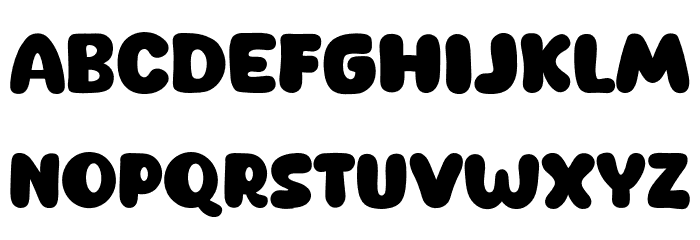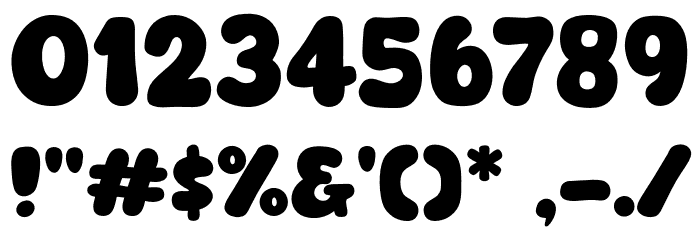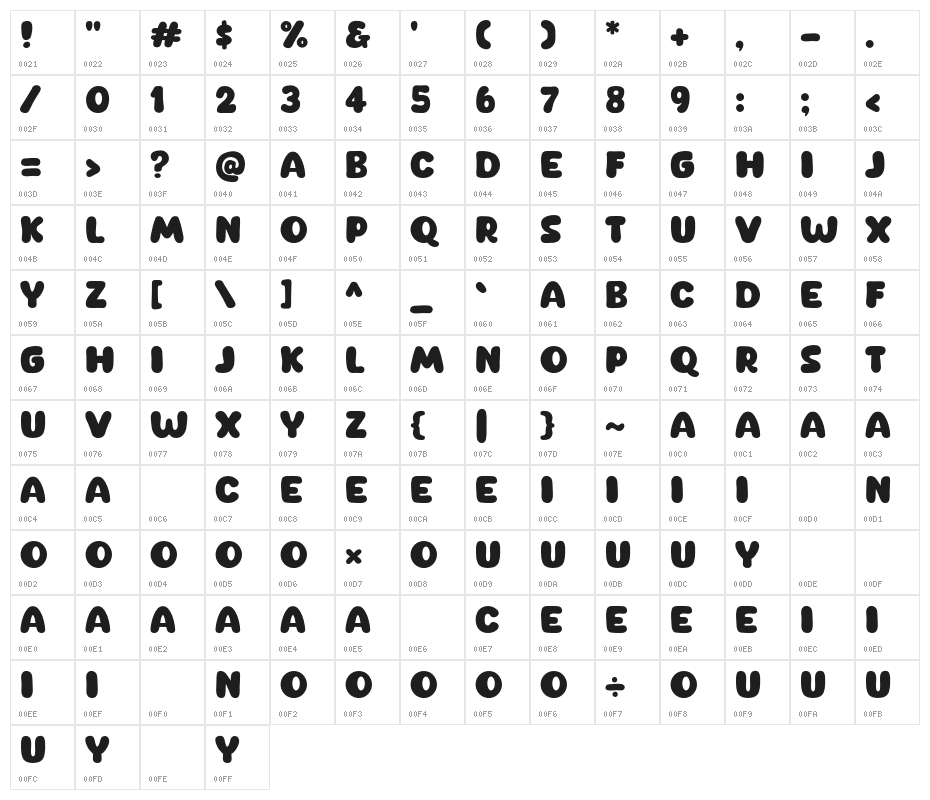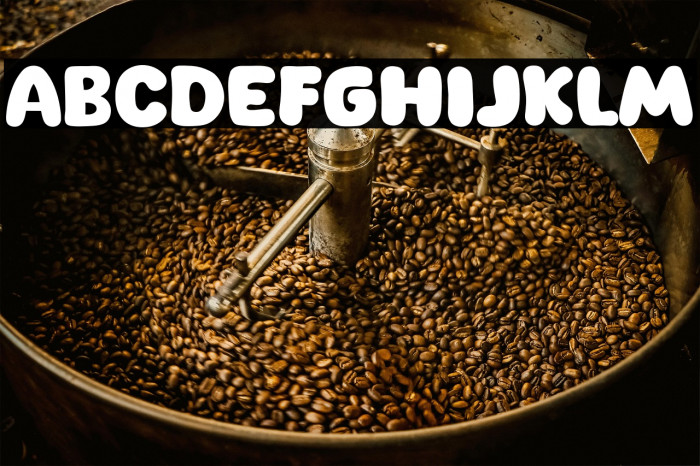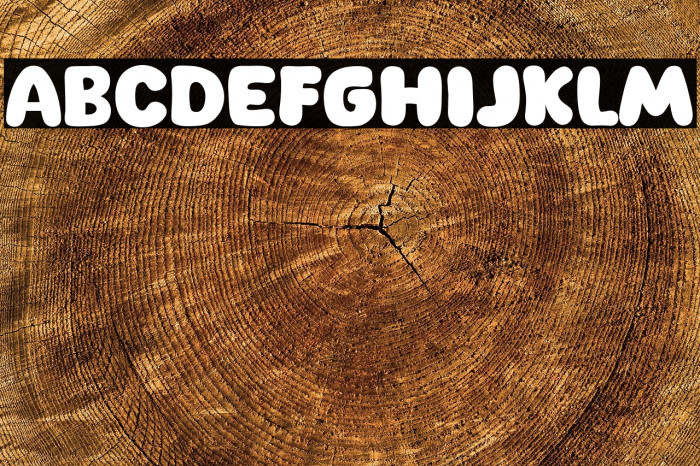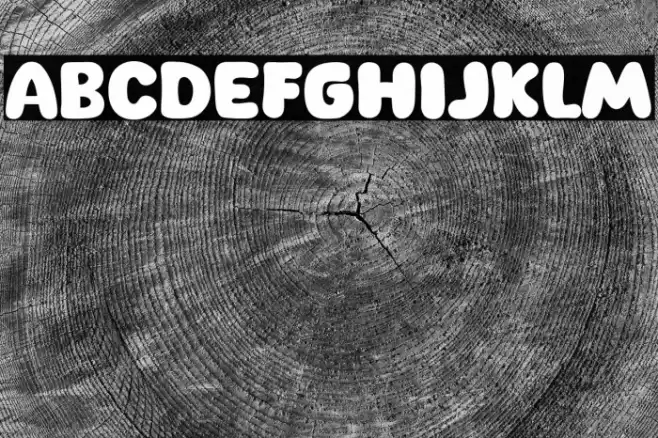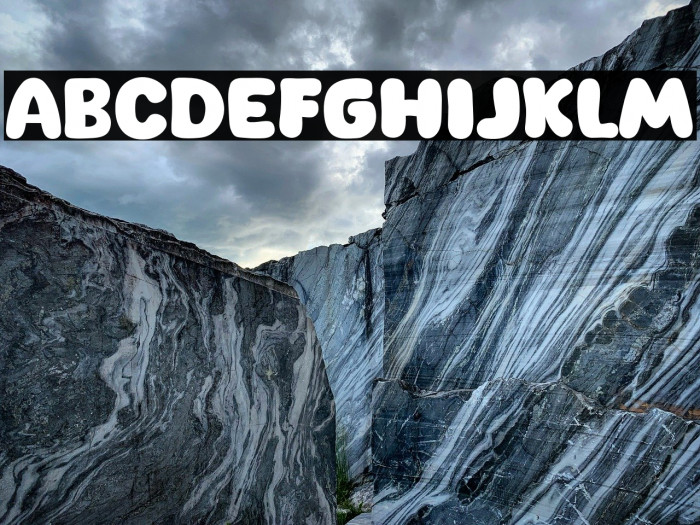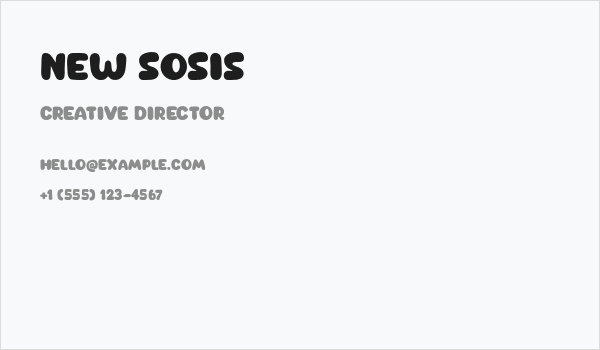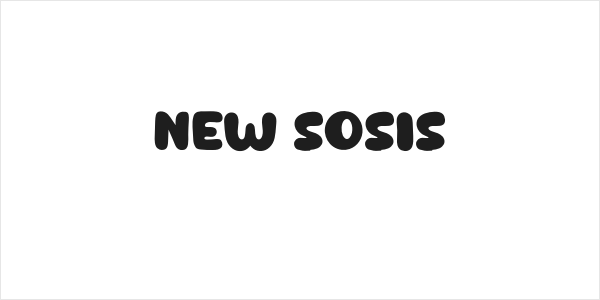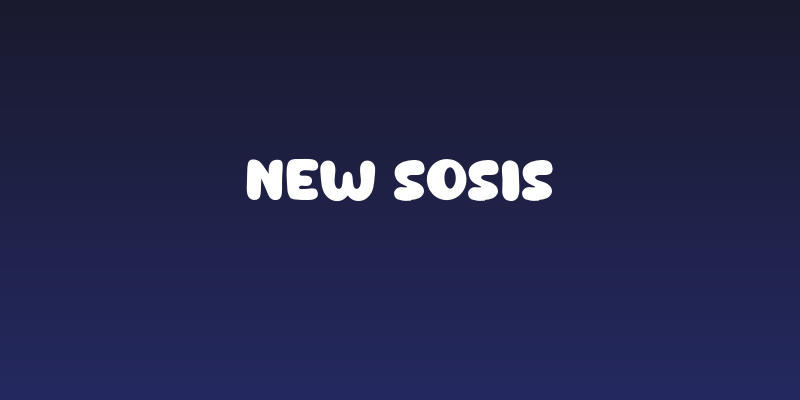
New Sosis Font
This font features a bold, playful style with rounded edges and a bubbly appearance. The characters are thick and have a uniform stroke width, giving them a cohesive and friendly look. The uppercase and lowercase letters maintain a consistent design, enhancing readability while adding a touch of whimsy. The numbers and special characters follow the same design principles, ensuring a harmonious overall appearance. This font's unique style makes it stand out, making it suitable for projects that require a fun and engaging visual element.
A bold, playful font with rounded edges and a bubbly appearance.
- Font: New Sosis
- Proposed Projects: Ideal for children's books, playful branding, posters, and creative social media graphics.
- Overall Style: Playful, Fun